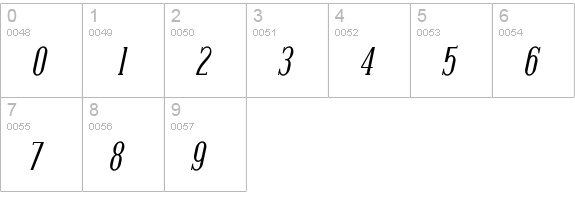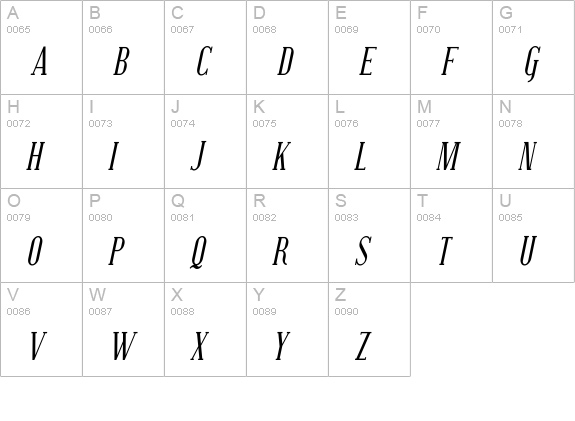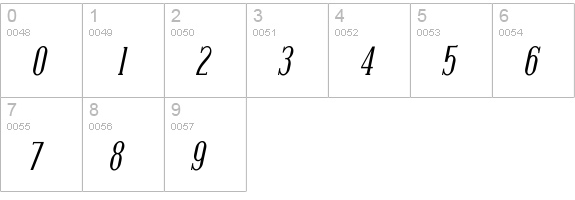
Covington SC Cond Italic is a distinctive, condensed-width, italic variant in the Covington typeface family \xE2\x80\x94 well suited to design and typography projects.
Covington SC Cond Italic font is a versatile and elegant typeface that exudes sophistication and style. With its sleek and modern design, this font is perfect for a wide range of design projects, from branding to editorial design. The elegant italic style adds a touch of flair and personality to any text, making it stand out from the crowd. The best part? Covington SC Cond Italic font is available for free download at FontsMarket.com, where you can easily access this stunning typeface and elevate your design projects to the next level. Whether you're working on a website, poster, or logo, Covington SC Cond Italic font is sure to make a lasting impression with its refined and contemporary aesthetic. Download this font today and add a touch of sophistication to your designs!